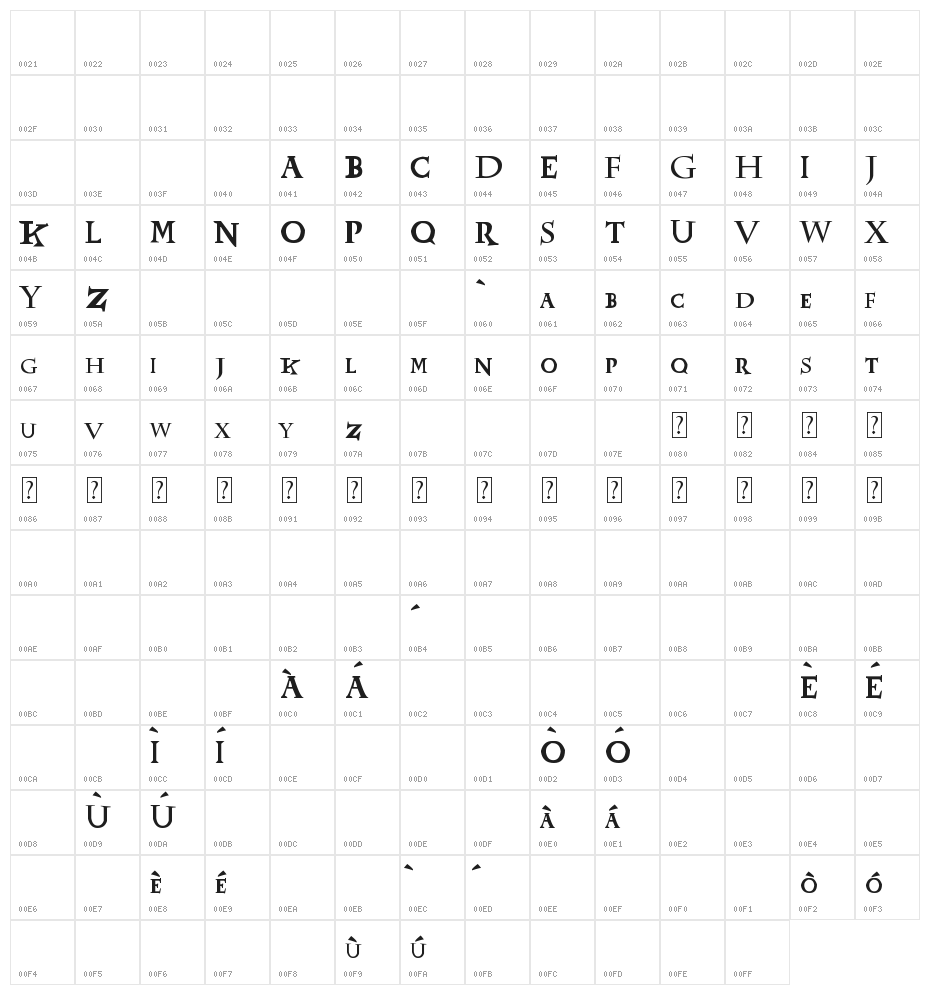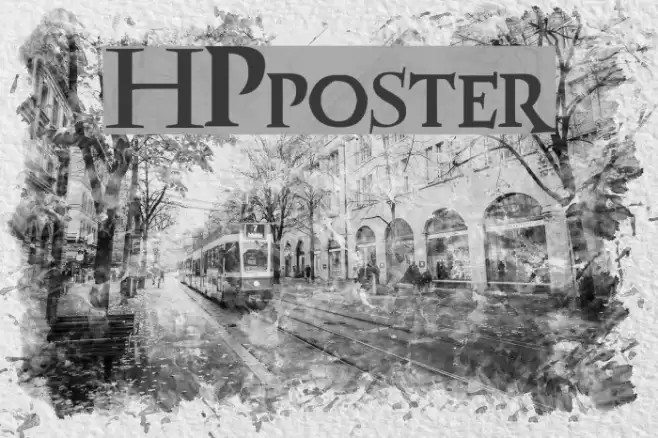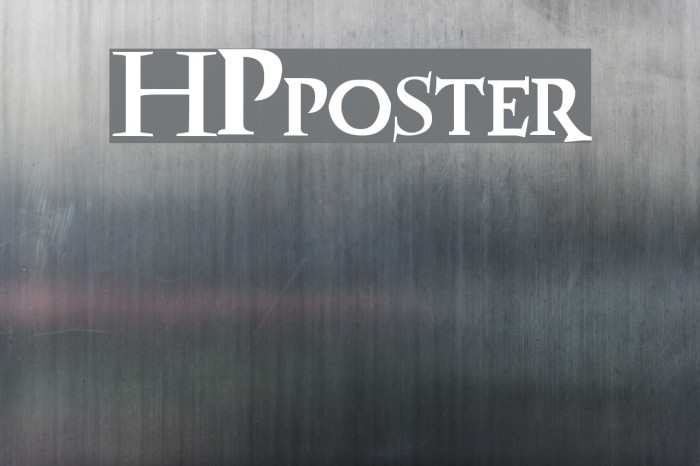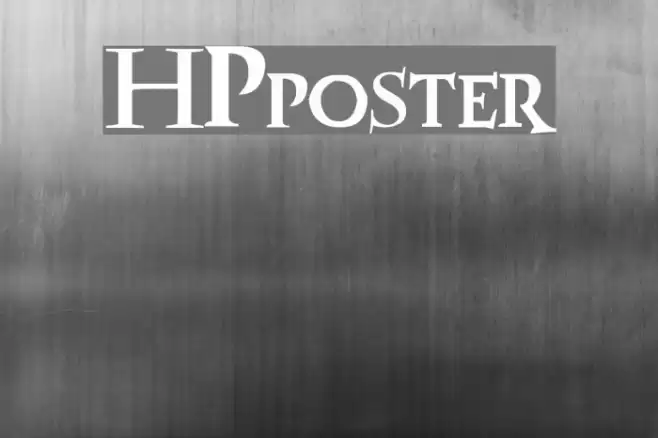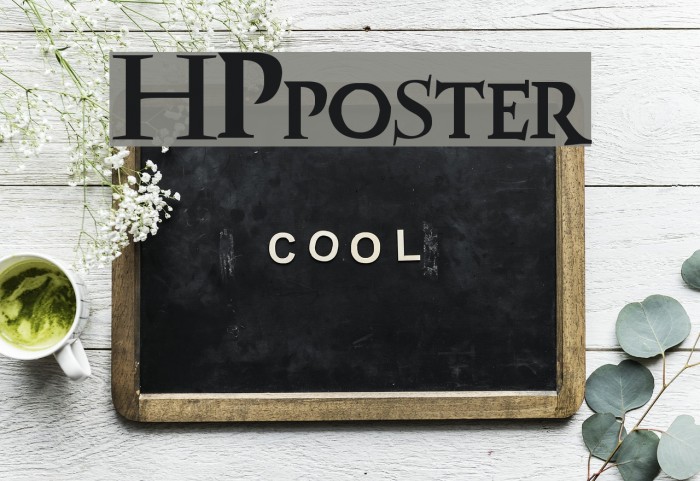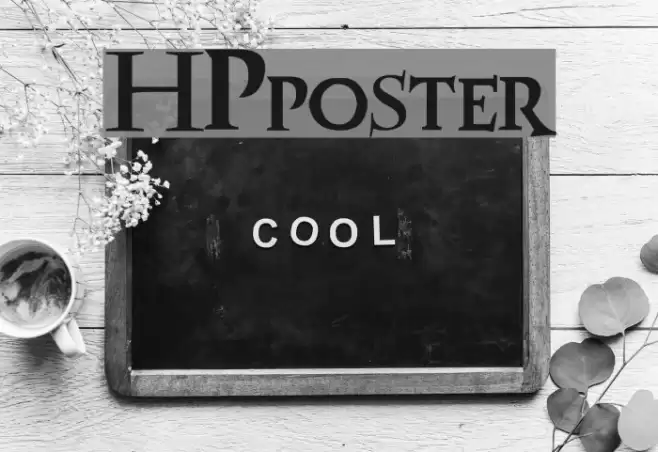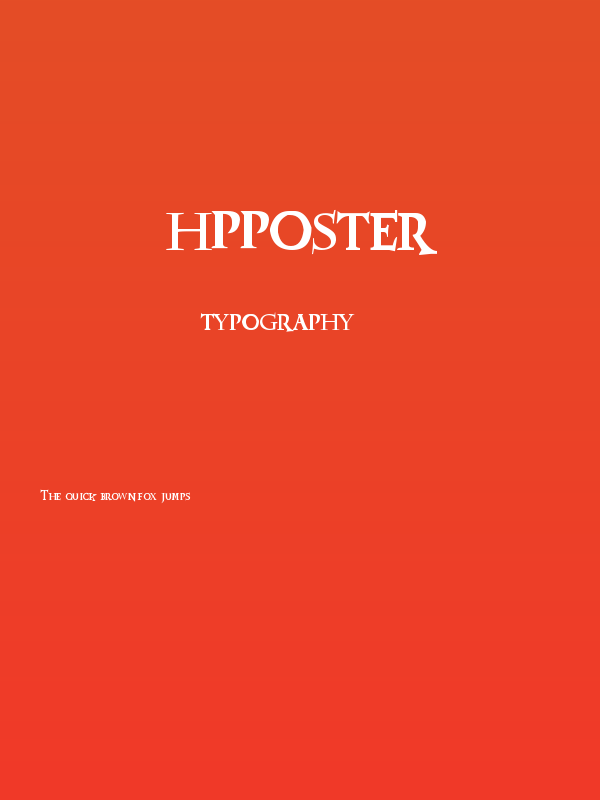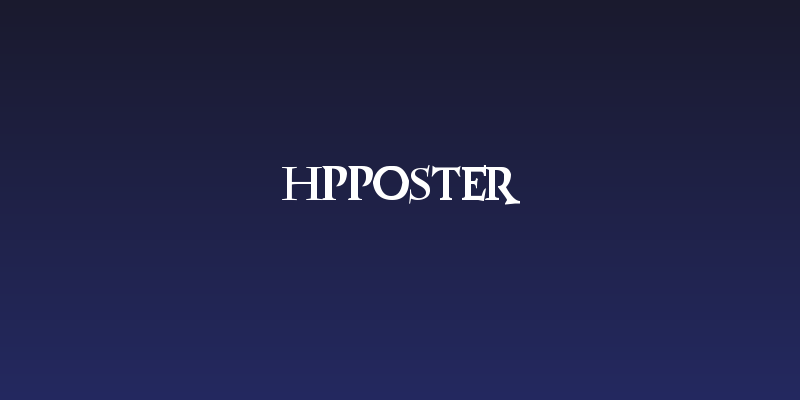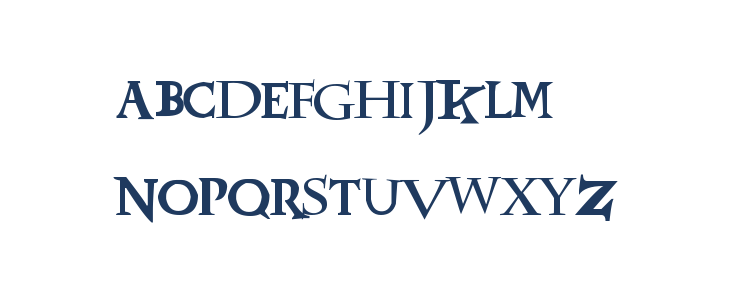
HPposter Font
HPposter Description
This font features a distinctive, sharp, and angular design, reminiscent of medieval or fantasy themes. The characters have a bold presence with unique serifs that give an impression of mystery and elegance. The uppercase letters are particularly striking, with pointed edges and a slightly gothic flair. The overall appearance is both dramatic and sophisticated, making it suitable for projects that require a touch of the fantastical or historical. The font's style is consistent across all characters, maintaining a cohesive look that is both eye-catching and memorable.
Proposed ProjectsIdeal for book covers, movie posters, fantasy-themed events, and branding for games or entertainment.